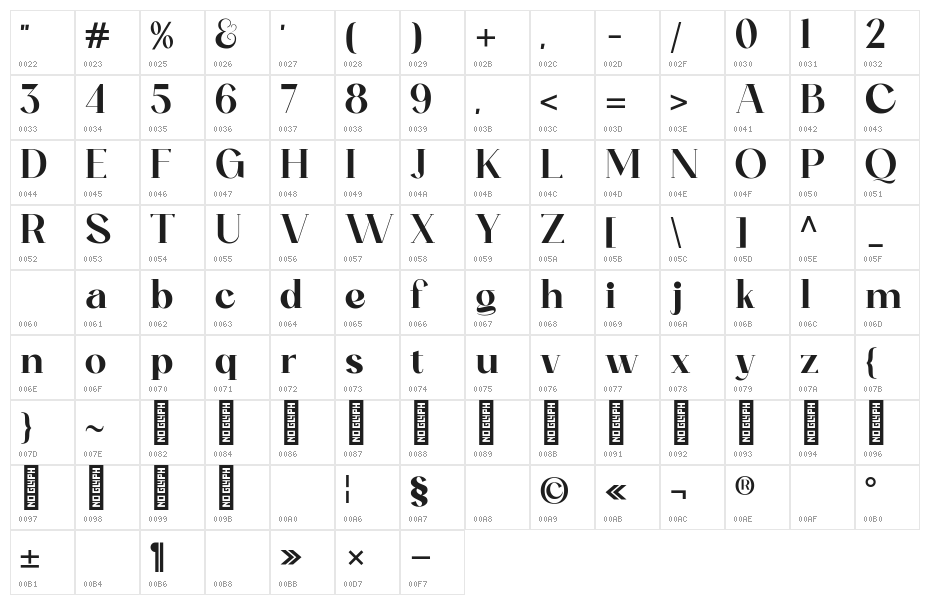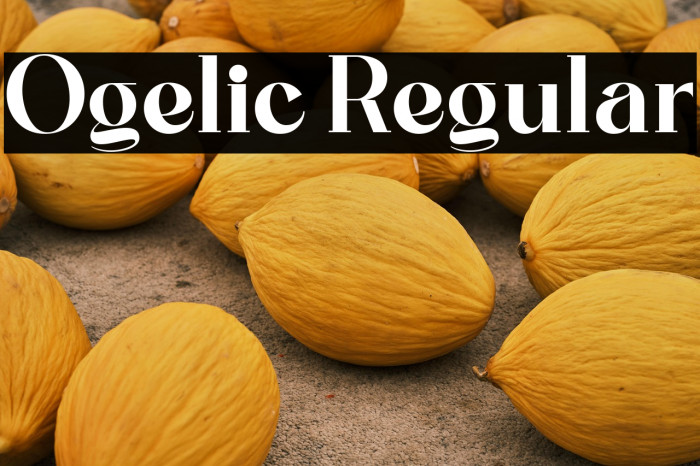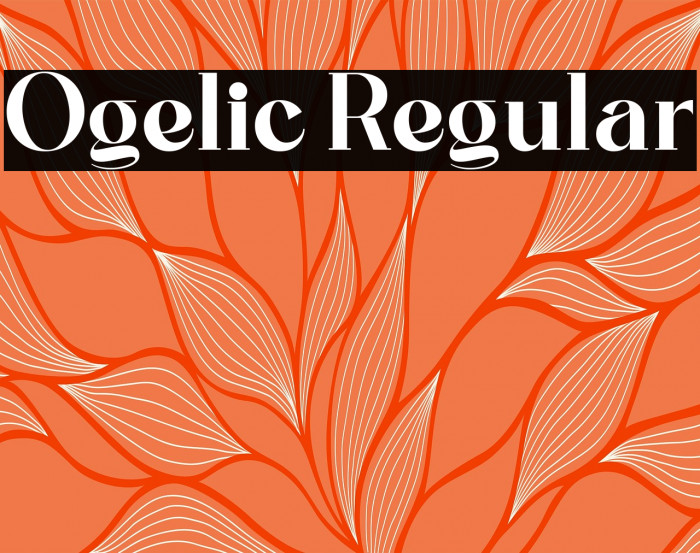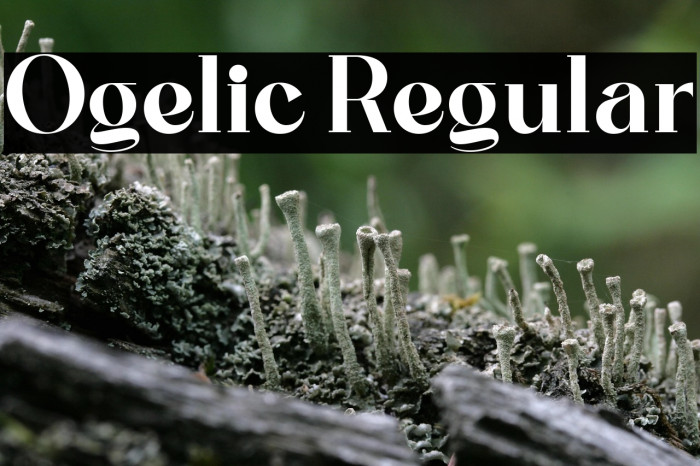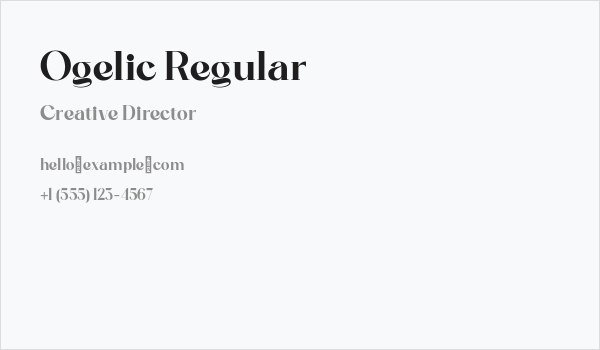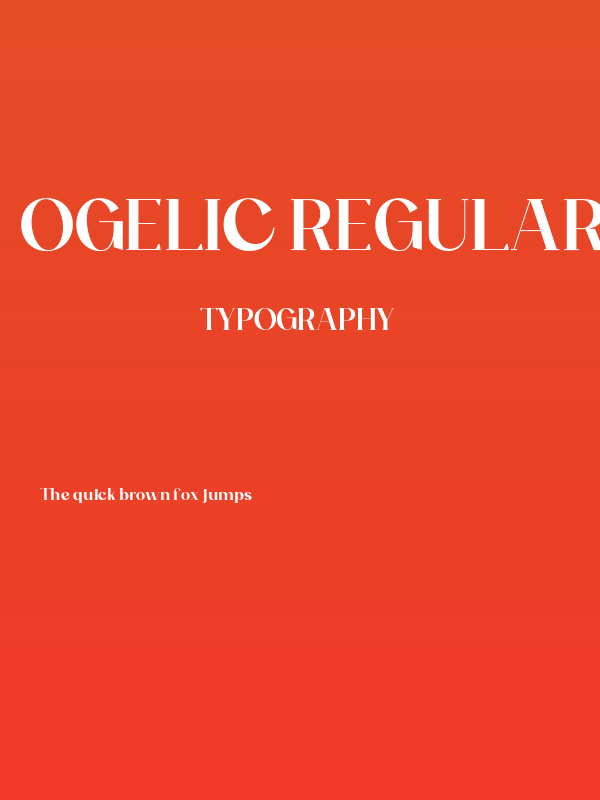
This font features a sophisticated and elegant design with a high contrast between thick and thin strokes, giving it a refined and classic appearance. The uppercase letters are tall and commanding, while the lowercase letters maintain a balanced and harmonious flow. The numerals are distinct and stylish, complementing the overall aesthetic. Special characters are designed with flair, adding to the font's versatility. The serifs are pronounced, contributing to its traditional yet modern feel, making it suitable for a variety of design applications.
| Use Case | Headlines, Logos, Editorial design |
| Proposed Projects | Ideal for luxury branding, editorial design, invitations, and high-end product packaging. |